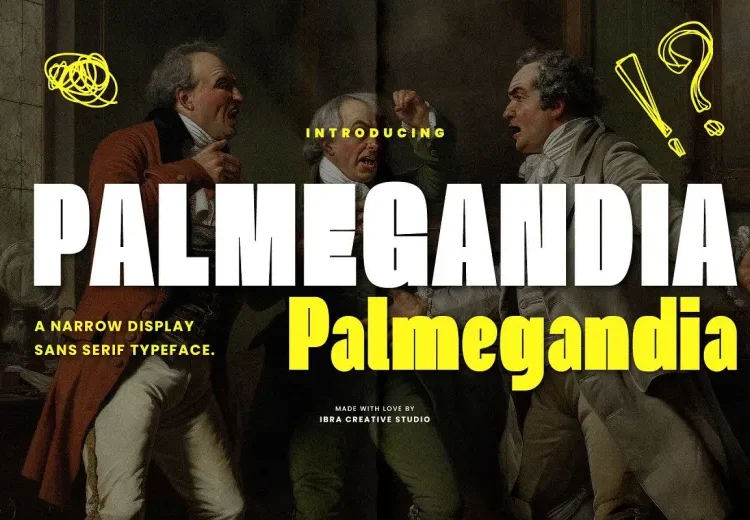
Palmegandia Font
Palmegandia is an elegant, slim display sans-serif typeface that achieves a perfect balance between modernity and simplicity.
The font’s slender letterforms exude a refined sophistication, making it an excellent choice for applications where space is limited. Its versatility shines in headlines, banners, and logo designs, adding a touch of modern elegance to any project.
Features:
• Elegant Slim Design: Slim letterforms that enhance modern sophistication.
• Versatile Usage: Ideal for tight spaces in headlines, banners, and as a distinctive logo choice.
• Modern Aesthetic: Provides a sleek and refined appearance suitable for various professional designs.